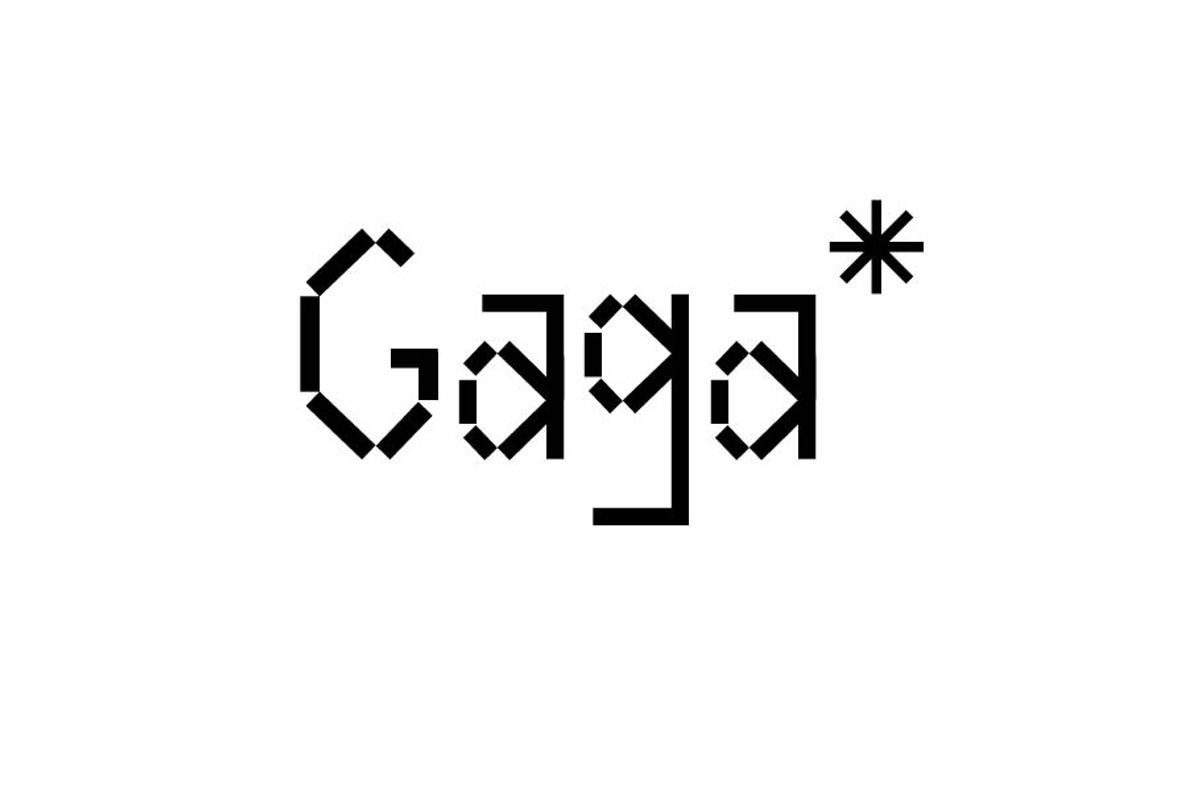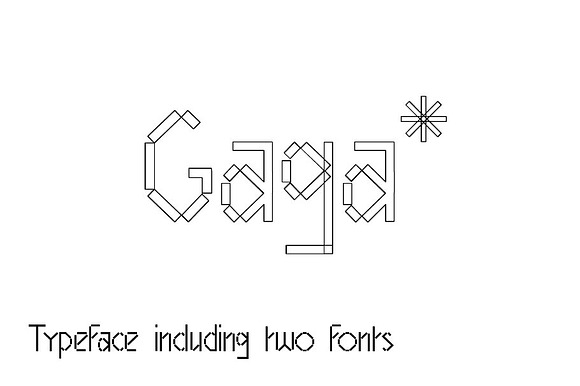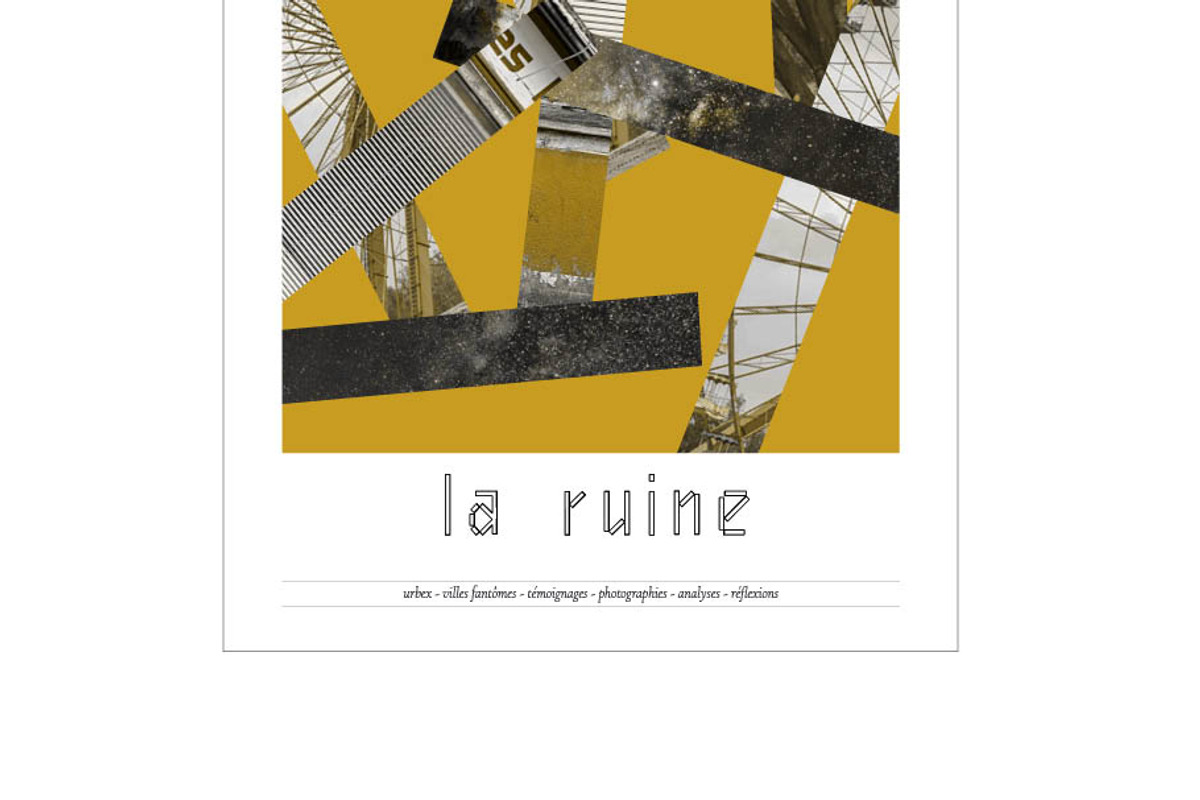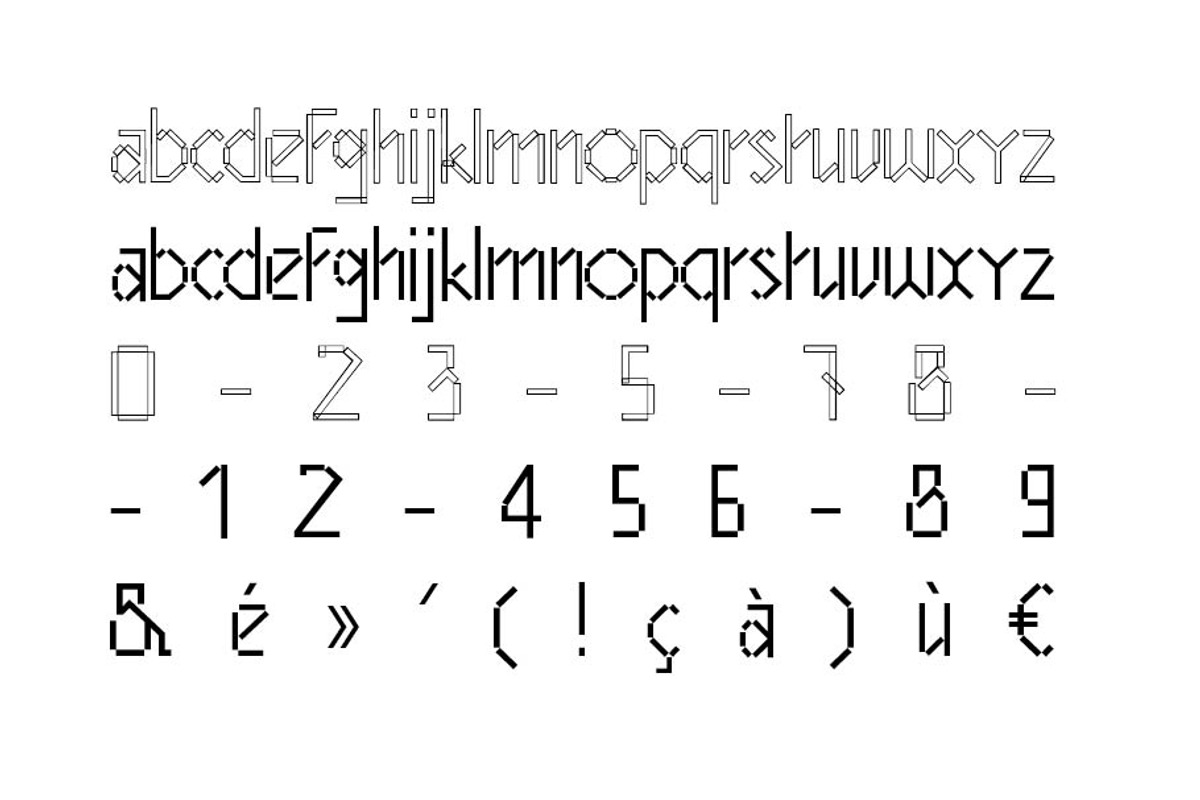
Gaga Font
New typeface "Gaga" inspired by ruins. Free upgrades will be send even after purchase. Better for titles and big size
- Gaga Regular
- Gaga Border
Gaga Font by Estelle Couturier fits naturally into Branding, posters, packaging, typography.